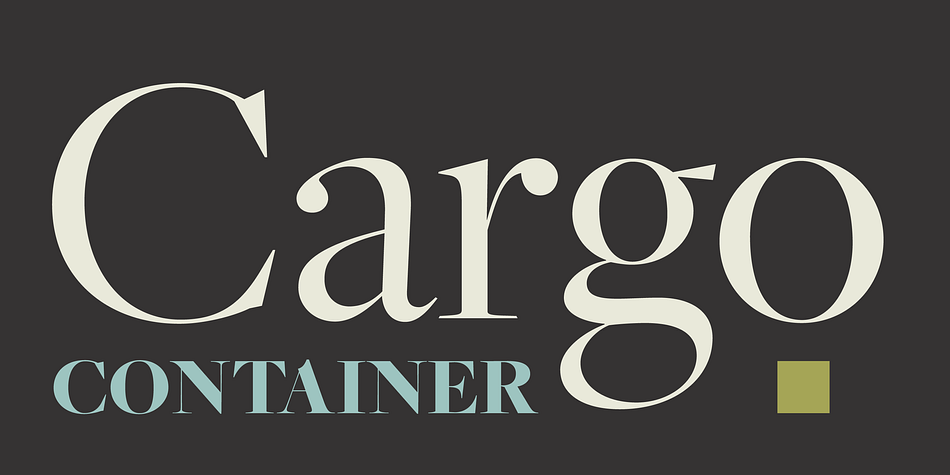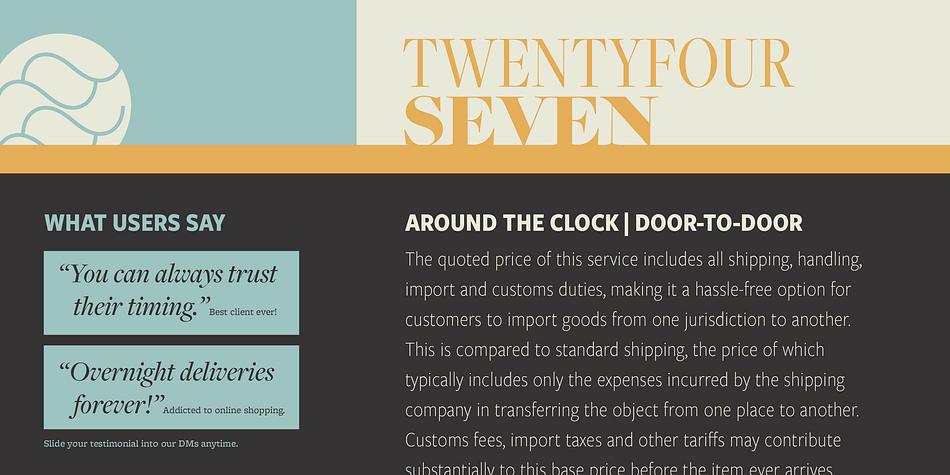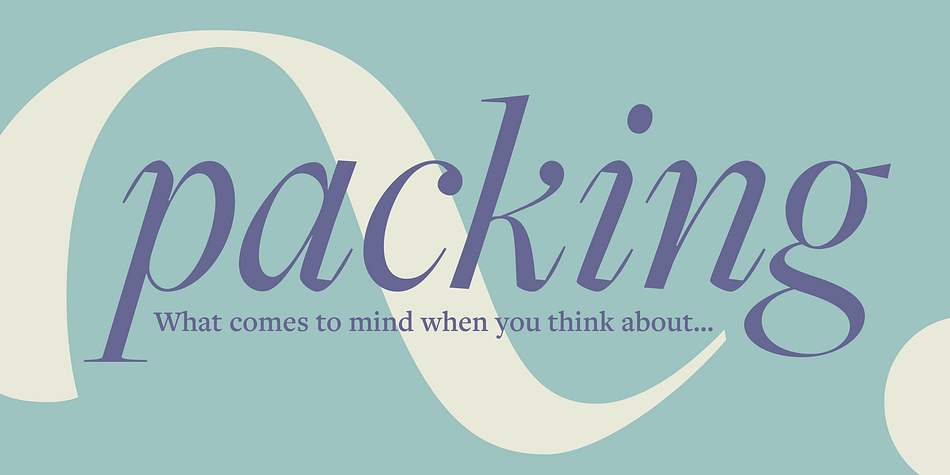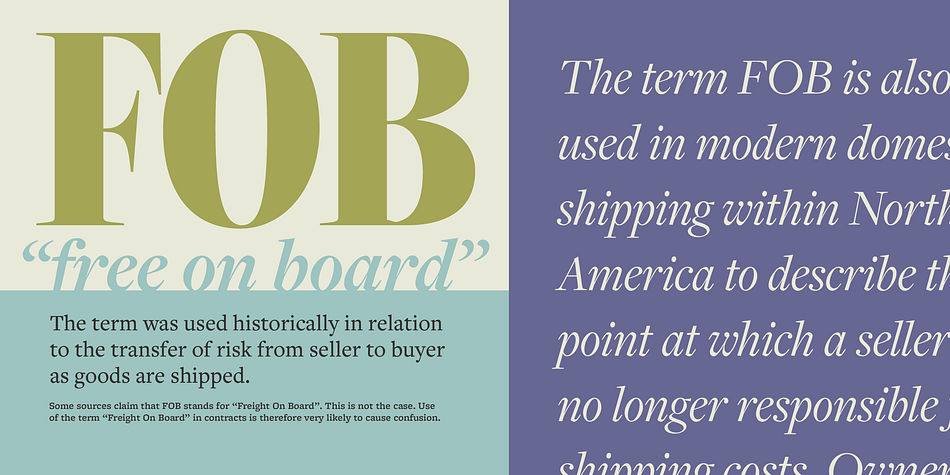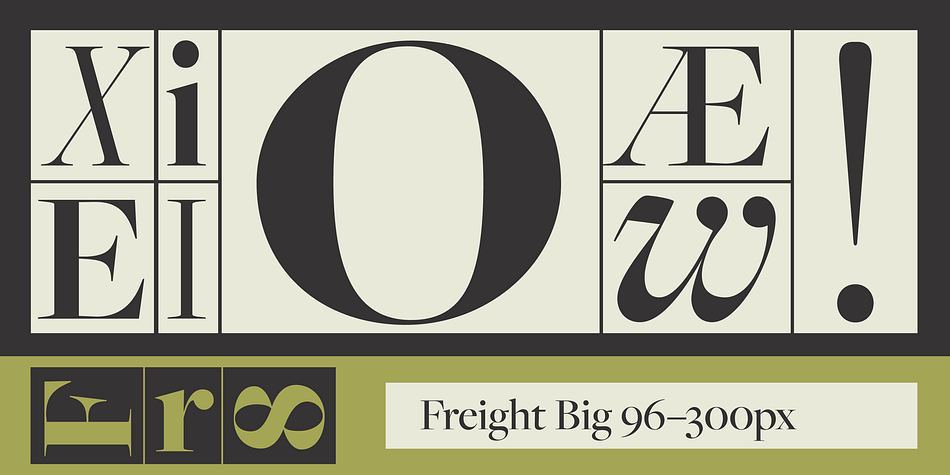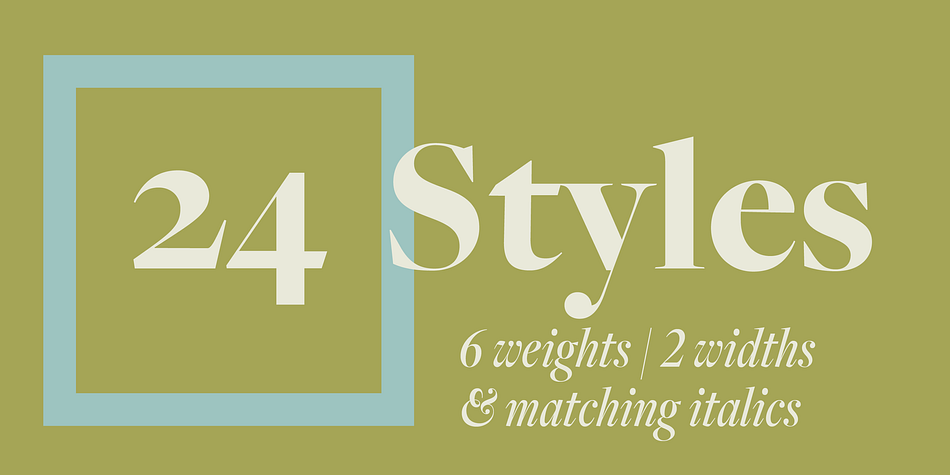
Designed by Joshua Darden, Freight Big Pro is a serif font family. This typeface has twelve styles and was published by Freight Collection.
Freight is a practical attempt to unify Johann Michael Fleischmann and Stanley Morison’s signature text types. Although these historical faces appeared more than 150 years apart, they are remarkably similar in their embrace of the Dutch traits of economy, glister and crunch.
Freight Text, Sans and Micro are the result of a seven-year quest to describe these virtues across a range of weights and morphologies, suitable for use across a variety of modern media.